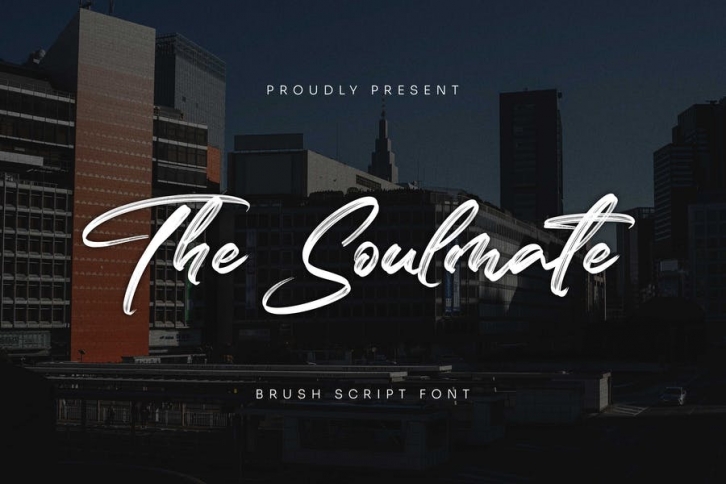
Introducing The Soulmate - Brush Script  is a Authentic brush script that is written casually and quickly. Letters are made with brushes on paper. Then scanned and carefully drawn into vector format.
That is why The Soulmate has charming, authentic and relaxed characteristic more natural look to your text with a more natural look to your text. You can activate Ligature OpenType panel, The Soulmate Perfect for  designs,branding projects, Logo design, Quotes product packaging